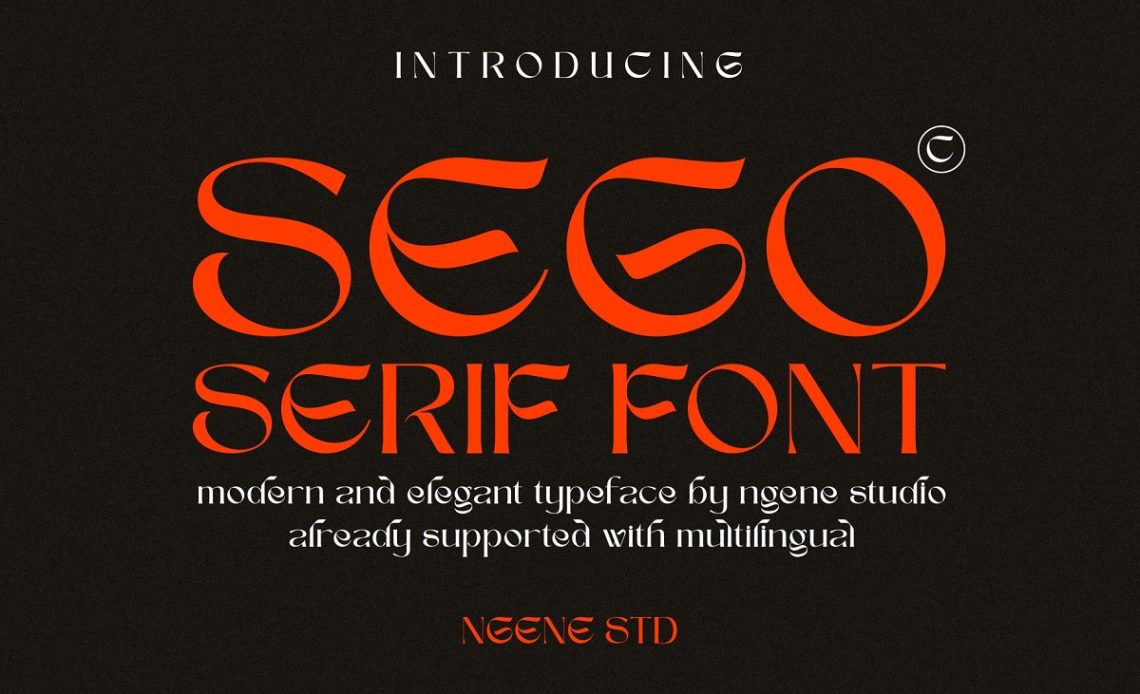
Are you looking for the perfect font to give your resume a creative and professional edge? Look no further than Sego Serif Font! This stunning vintage-style serif font, created by Ngene Std, combines elegance with modern design to create a font that truly stands out.
Sego Serif Font features a wide range of character alternatives, making it perfect for a variety of design needs. Whether you're creating a logo, badge, web font, or magazine, Sego Serif Font has you covered. Its strong character and unique style will make your design pop, drawing attention and making it more memorable.
In addition to its stunning design, Sego Serif Font is also highly versatile, making it the perfect choice for any project. Its clean lines and classic style make it suitable for both traditional and modern designs, while its vintage feel adds a touch of nostalgia and sophistication.
But Sego Serif Font isn't just a pretty face - it's also highly functional. This font is carefully crafted with readability in mind, ensuring that your message comes across clearly and effectively. Its clean and simple design makes it easy to read at any size, while its wide range of characters ensures that you can express your message in a variety of styles.
So why settle for a boring font when you can elevate your design with Sego Serif Font? With its stunning vintage style, unique character alternatives, and exceptional versatility, this font is the perfect choice for anyone looking to create a truly memorable design. Try it out today and see the difference for yourself!